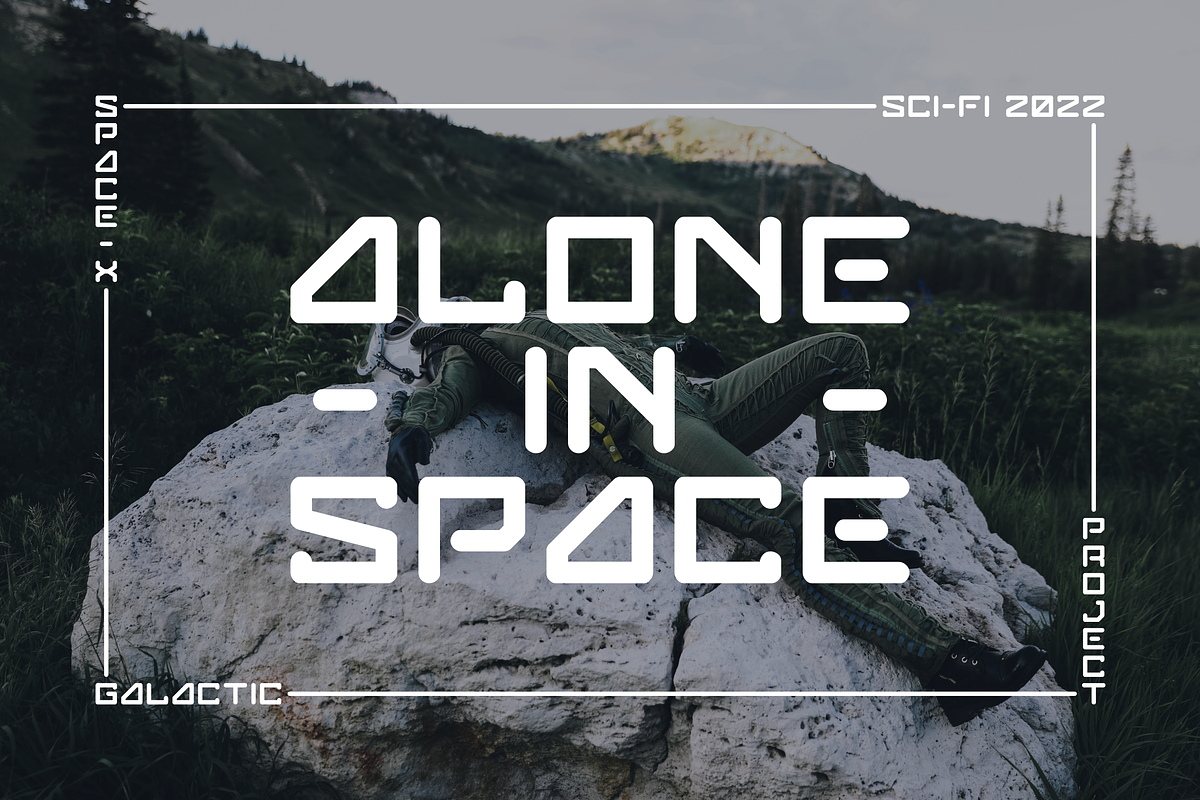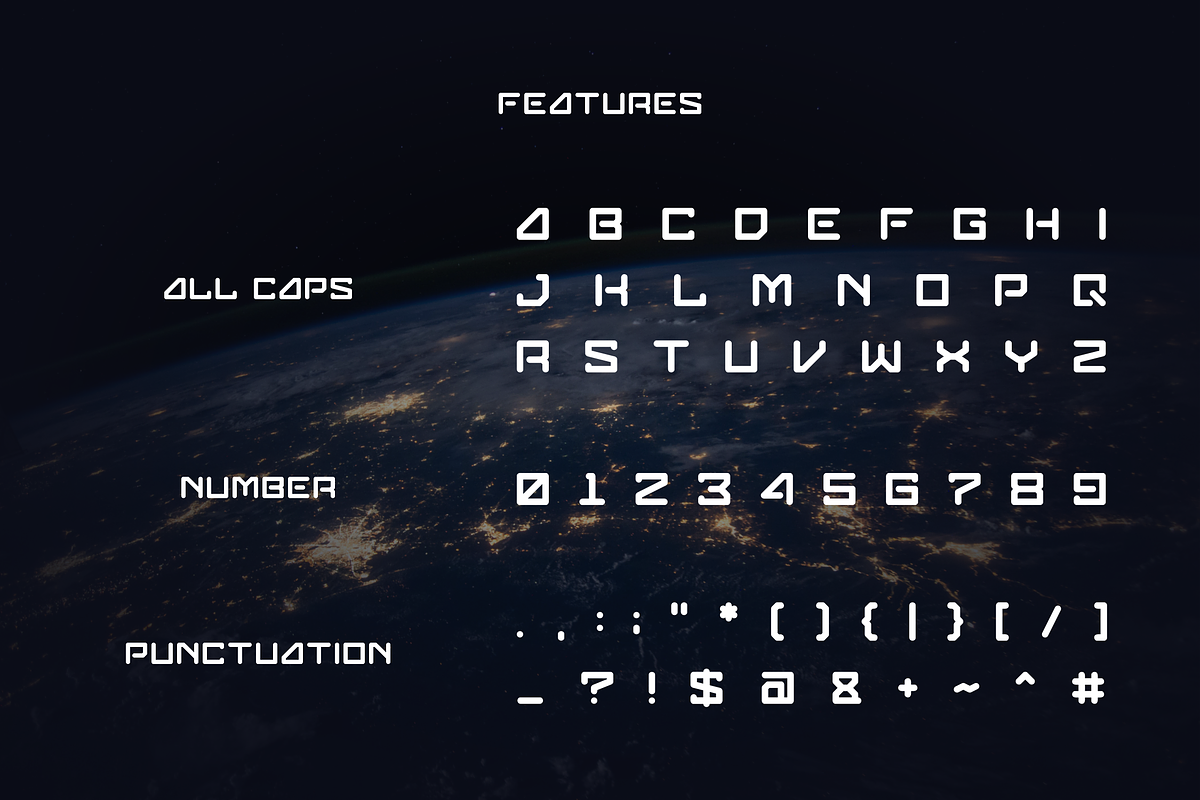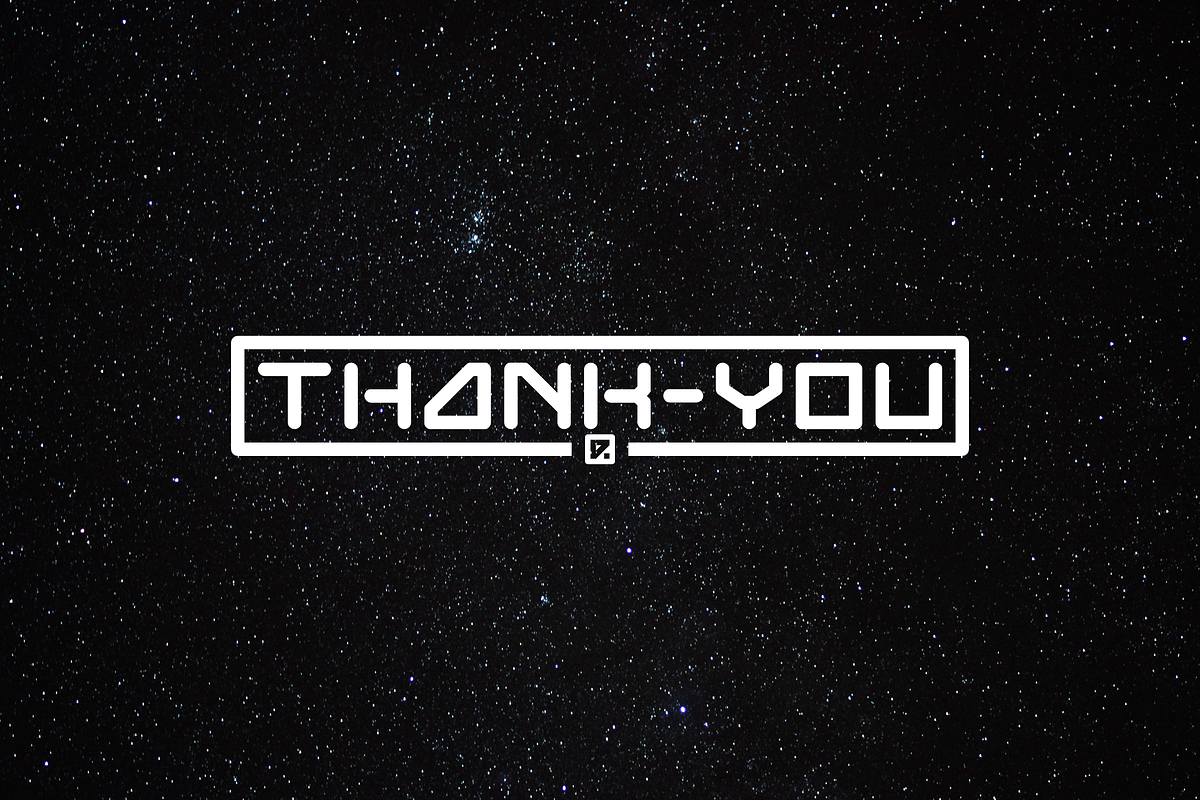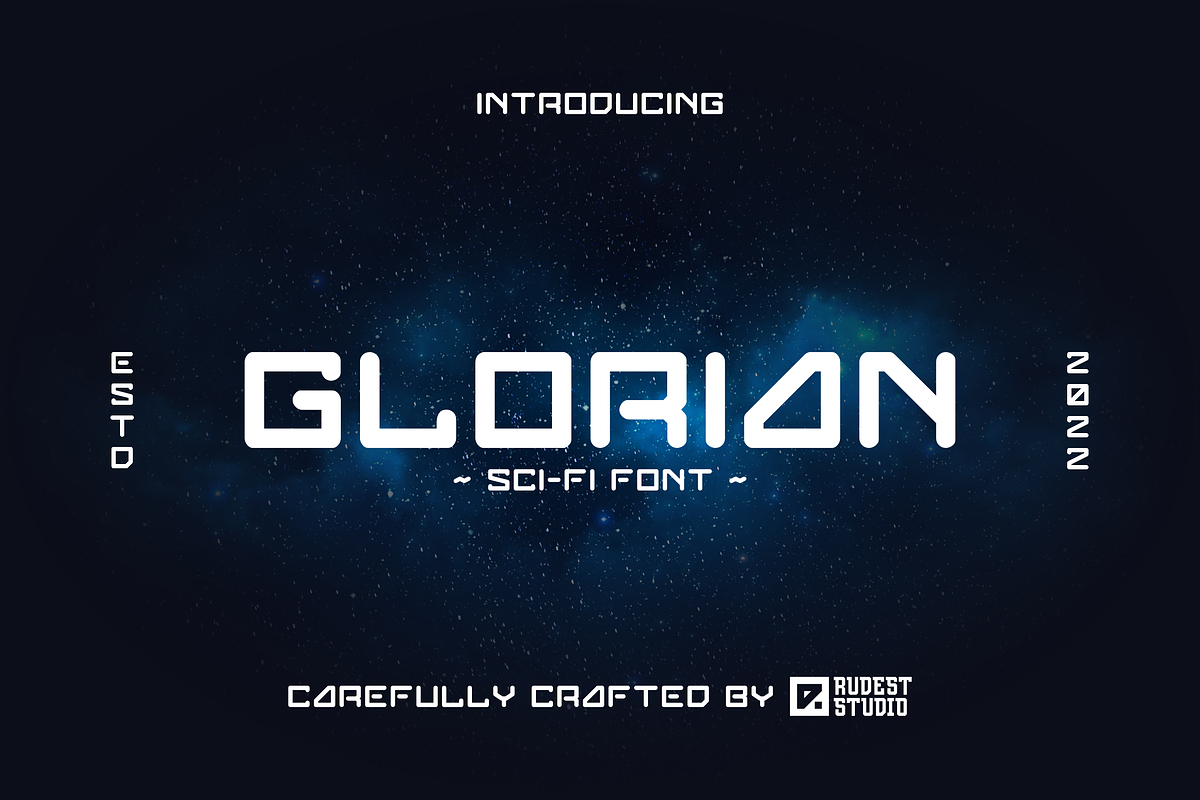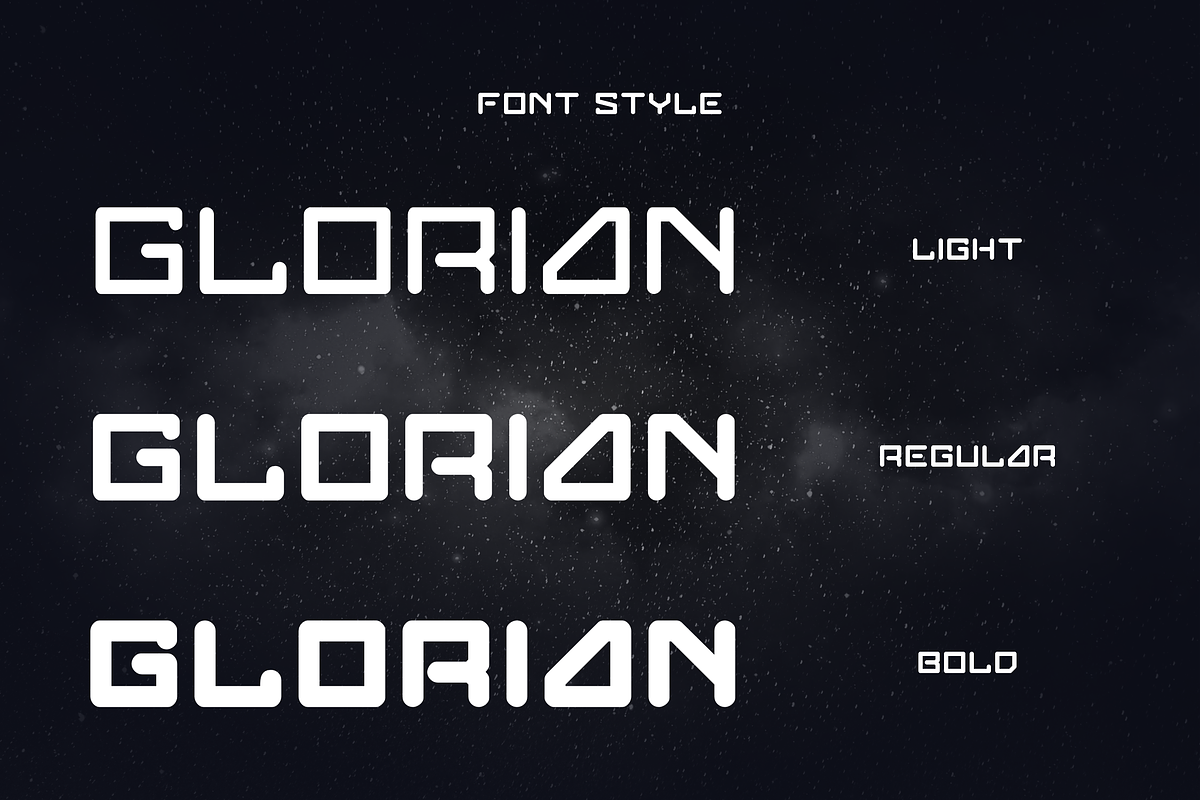
Introduce my new font called Glorian. Glorian is a futuristic font inspired by science fiction movies and books. Minimalistic is the main style for this typeface also outline style give more modern and elegant look. This font is suitable for various purpose such as movies, posters, logos, labels, and any modern purposes.
Font Styles :
- Glorian Light
- Glorian Regular
- Glorian Bold
- All Caps
- Punctuations